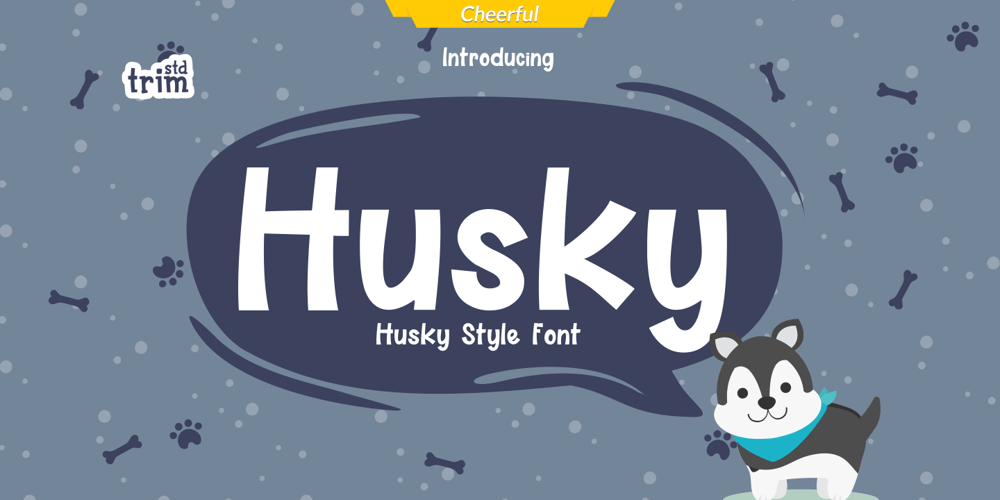
Husky Font Family was designed by Deri Kurnia and published by Trim Studio. Husky contains 1 styles and family package options. Husky is a sweet and playful handwritten font, clean and a little bit quirky, this font is the perfect fit for crafter and graphic artist to complete their design such as invitation, advertisement, poster, logo, birthday, product sign, and many more!